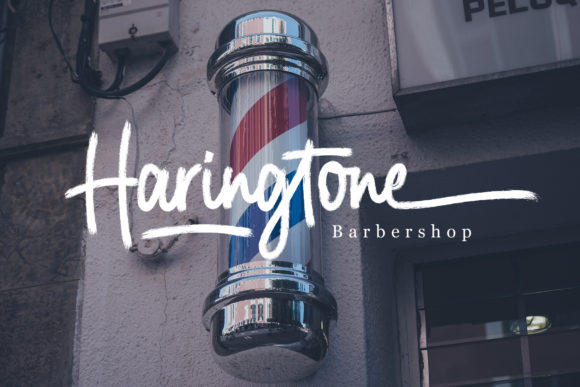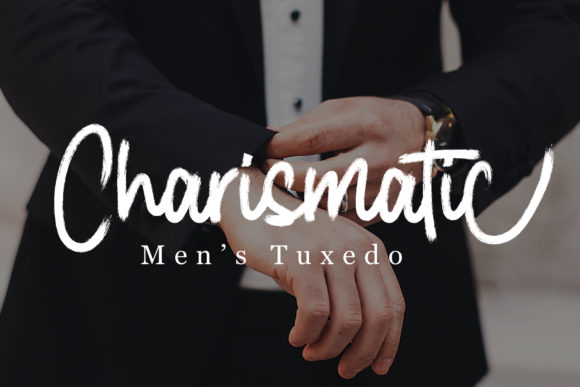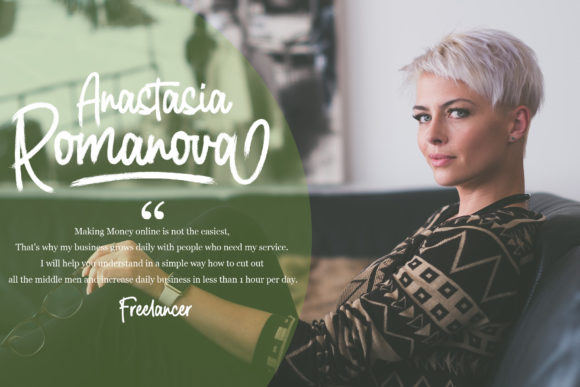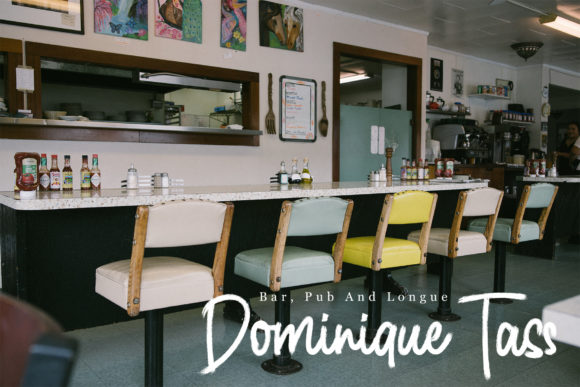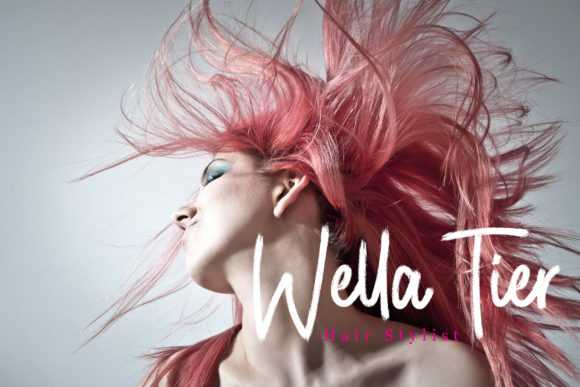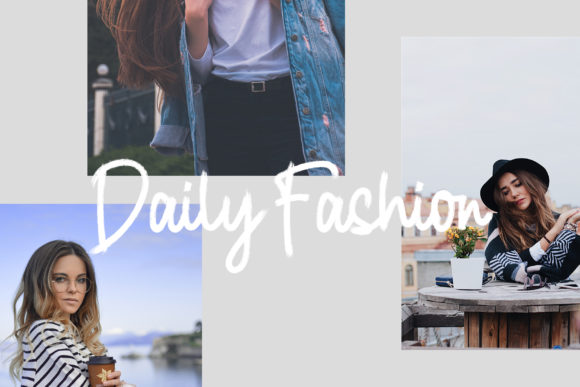
The Creative Spark: How Brainstorm Font Elevates Your Design
I’ll never forget the moment I stumbled upon the perfect font for a client’s branding project. I was working late, surrounded by design boards and cups of cold coffee, when I realized that the font I was using just wasn’t cutting it. The client wanted something that would capture the essence of their innovative company, but I was stuck. That’s when I discovered Brainstorm Font. With its charismatic lettering and distinct brush strokes, Brainstorm took my design to the next level and exceeded my client’s expectations.
So, what makes Brainstorm Font so special? Let’s dive into the details.
- ✨ Unique brush strokes: Brainstorm’s distinctive strokes add a touch of personality to any design.
- ✅ Highly legible: Despite its creative flair, Brainstorm remains easy to read, making it perfect for headings and titles.
- 💫 Versatile: From digital designs to print materials, Brainstorm adapts seamlessly to various mediums.
While Brainstorm Font is an excellent choice, there are a few things to keep in mind:
- 🤔 Limited use in body text: Due to its bold and expressive nature, Brainstorm might not be the best fit for lengthy paragraphs.
- ⚠️ Requires attention to spacing: To ensure optimal readability, be mindful of the spacing between letters and words.
The Designer Inspiration Behind Brainstorm Font
Brainstorm Font was designed with the creative process in mind. The designer aimed to create a font that would inspire imagination and bring a touch of personality to any design. With its unique brush strokes and expressive lettering, Brainstorm Font is the perfect tool for designers, crafters, and creative hobbyists looking to elevate their work.
| Font Name | Brainstorm Font |
| What makes Brainstorm Font unique? | Brainstorm Font features distinctive brush strokes and a charismatic lettering style that sets it apart from other fonts. |
| Is Brainstorm Font suitable for body text? | While Brainstorm Font is highly legible, its bold and expressive nature makes it more suitable for headings and titles. For body text, consider using a complementary font. |